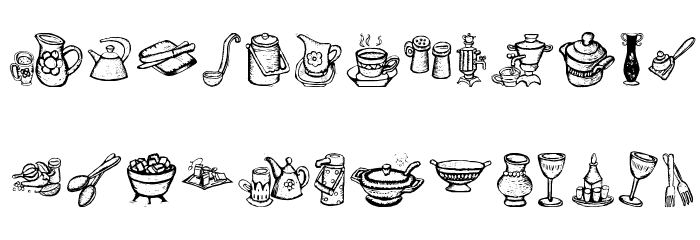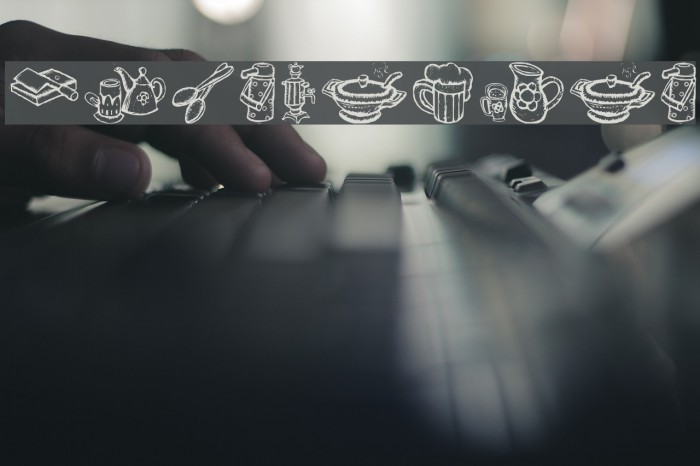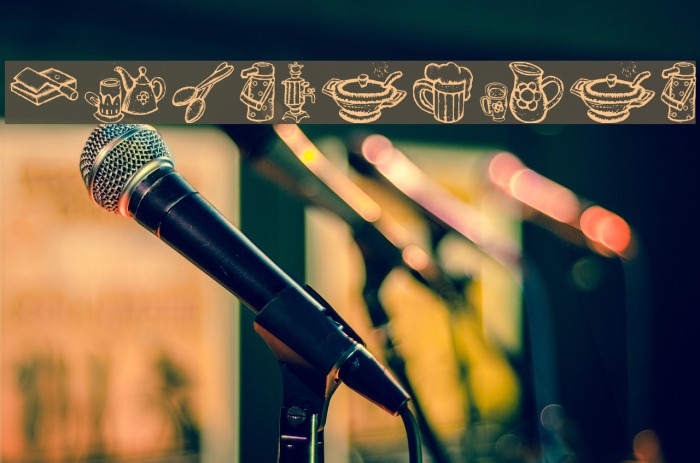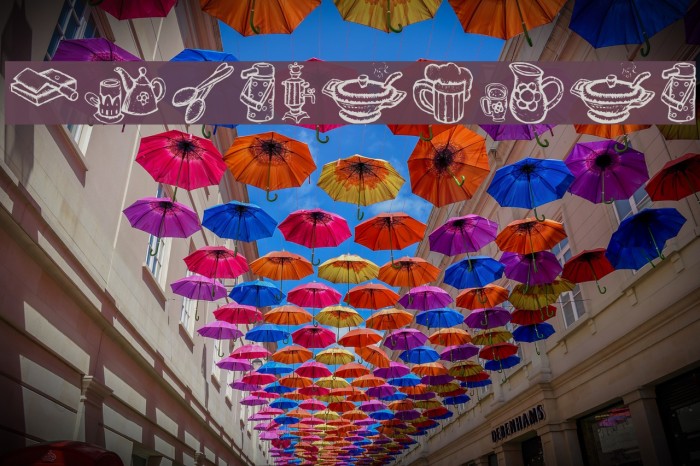
PrositBats Font
This collection features a whimsical array of hand-drawn illustrations representing various food and drink items. Each character is a unique depiction of culinary elements, ranging from beverages like mugs and bottles to kitchenware such as pots and pans. The style is playful and detailed, with a sketch-like quality that adds a touch of charm and personality to each icon. The illustrations are consistent in their artistic approach, making them suitable for themed projects that require a cohesive visual language.
A playful set of hand-drawn food and drink illustrations with a sketch-like charm.
- Proposed Projects: Ideal for menu designs, culinary blogs, recipe books, or any project needing a fun and artistic touch related to food and beverages.
- Use Case: Logos, Illustrations, Themed Designs